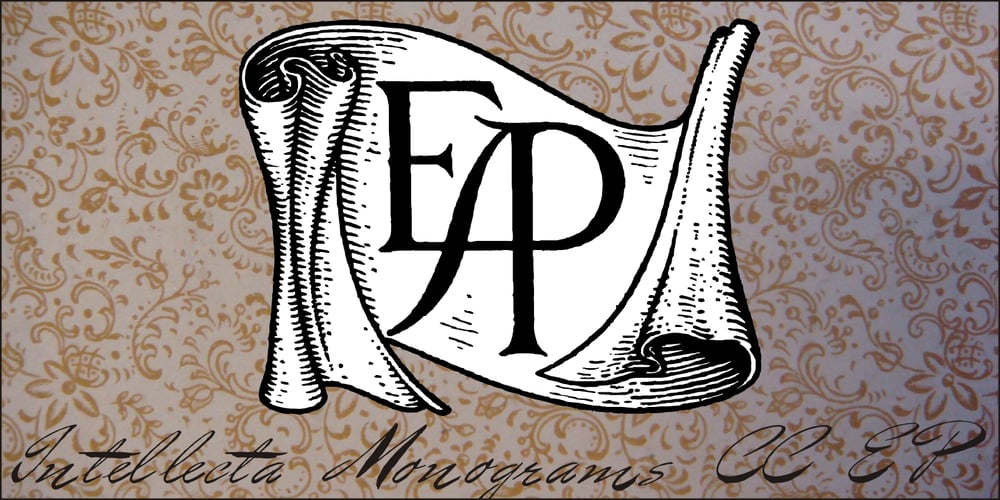
Intellecta Monograms Font Family was designed by Paulo W and published by Intellecta Design. Intellecta Monograms contains 36 styles and family package options. IntellectaMonograms is an extensive collection of ancient intrincate monograms, of all kinds, mainly Victorian style. To better understand the recherché combinations in these fonts, please take a look at the pdf brochures in the Gallery section.